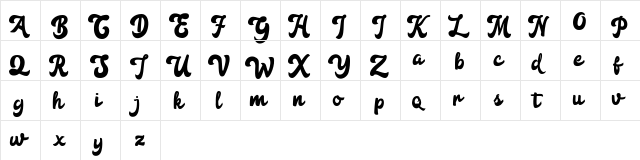
Anggada FREE Regular
Anggada FREE is a composed and adaptable typeface that performs quietly and consistently across a wide range of design contexts.